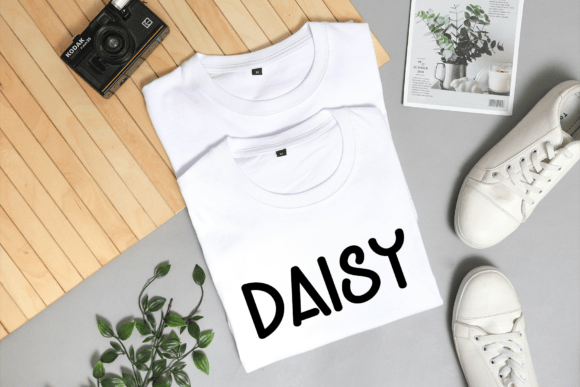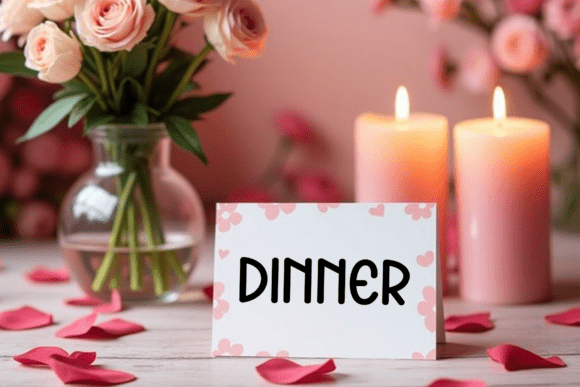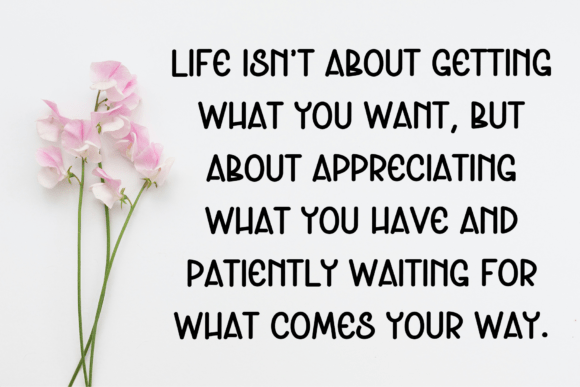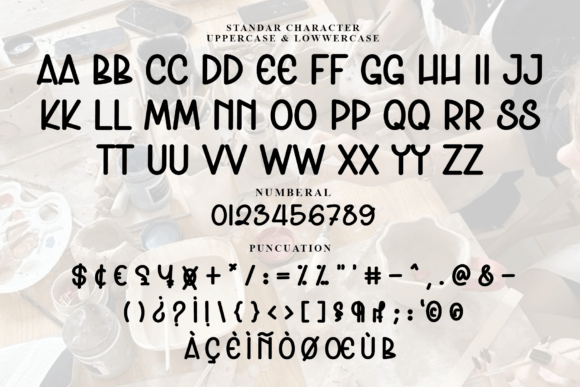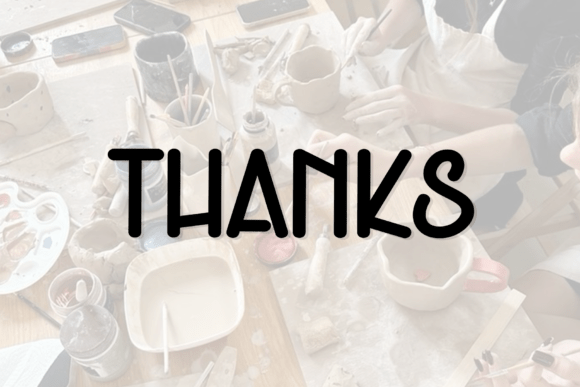
Introducing Creativity Font: The Perfect Handwritten Style for Your Next Project
Are you a designer or crafter looking for a font that can add a touch of personality and whimsy to your work? Look no further than Creativity Font, a charming and unique monoline font that’s perfect for a variety of projects. In this article, we’ll take a closer look at the features and benefits of Creativity Font, and explore how it can be used to bring a sense of playfulness and approachability to your designs.
A Friendly and Approachable Font
Creativity Font is a tall, friendly font with a charmingly uneven, monoline weight. Its slightly condensed and clean vertical structure gives it a straightforward, yet approachable, personality. This makes it an ideal choice for designers and crafters who want to create a sense of connection with their audience. Whether you’re working on a children’s book, custom stationery, or social media quotes, Creativity Font is the perfect choice for adding a touch of warmth and personality to your designs.
Ideal for a Variety of Projects
Creativity Font is a versatile font that can be used for a wide range of projects. Some of the ideal uses for this font include:
- Children’s books: The playful and whimsical nature of Creativity Font makes it perfect for kids’ books, where it can help bring stories to life and engage young readers.
- Custom stationery: Add a personal touch to your stationery with Creativity Font, which is perfect for creating custom greeting cards, invitations, and other paper goods.
- Social media quotes: Use Creativity Font to create inspiring and uplifting social media quotes that will resonate with your audience.
- Casual branding: Creativity Font is a great choice for brands that want to convey a sense of friendliness and approachability.
Key Features of Creativity Font
So what sets Creativity Font apart from other fonts? Here are some of its key features:
- Monoline weight: Creativity Font has a charmingly uneven, monoline weight that gives it a sense of personality and whimsy.
- Slightly condensed: The font’s slightly condensed structure makes it perfect for creating clean and easy-to-read designs.
- Clean vertical structure: The font’s clean vertical structure gives it a sense of straightforwardness and approachability.
- Playful and unique: Creativity Font is a truly unique font that’s perfect for designers and crafters who want to add a touch of personality to their work.
Tips for Using Creativity Font
Here are some tips for getting the most out of Creativity Font:
- Use it for headlines: Creativity Font is perfect for headlines, where its playful and whimsical nature can really shine.
- Pair it with other fonts: Try pairing Creativity Font with other fonts to create a unique and interesting contrast.
- Experiment with colors: Creativity Font looks great in a variety of colors, so don’t be afraid to experiment and find the perfect hue for your design.
Creativity Font is a unique and versatile font that’s perfect for designers and crafters who want to add a touch of personality and whimsy to their work. With its charmingly uneven, monoline weight and slightly condensed and clean vertical structure, Creativity Font is ideal for a wide range of projects, from children’s books and custom stationery to social media quotes and casual branding. Whether you’re looking to create a sense of connection with your audience or simply want to add a touch of playfulness to your designs, Creativity Font is the perfect choice.